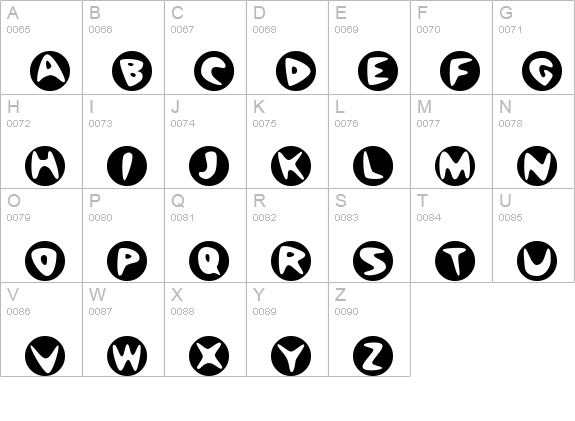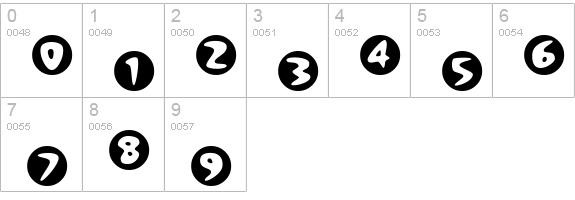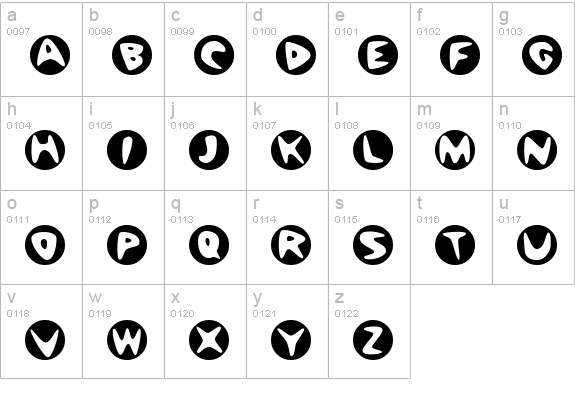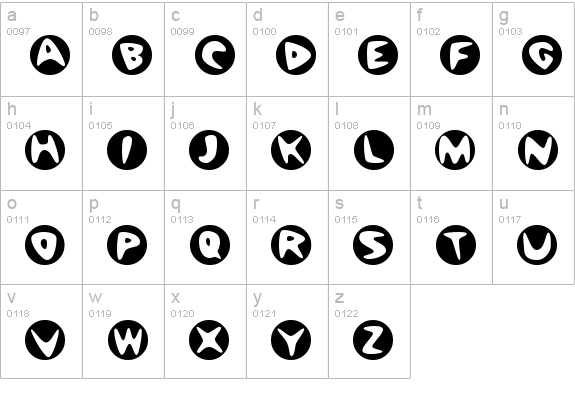
BowlORama Font Details
BowlORama font is a playful and charming typeface that exudes a sense of whimsy and fun. Its rounded shapes and bold strokes give it a friendly and inviting look that is perfect for a variety of design projects. Whether you're creating a poster for a children's event or designing a logo for a trendy cafe, BowlORama font will add a touch of personality and flair. The best part? BowlORama font is completely free to download at FontsMarket.com. You can easily access this delightful font and start using it in your projects right away. Don't miss out on the opportunity to add a unique and eye-catching element to your designs with BowlORama font. Download it today and let your creativity shine!